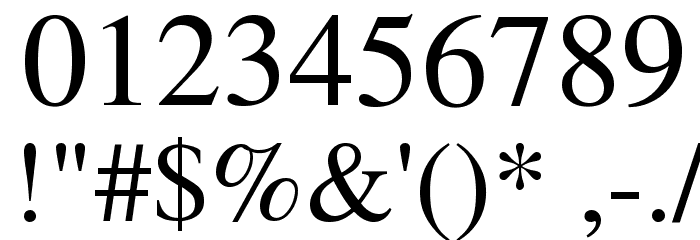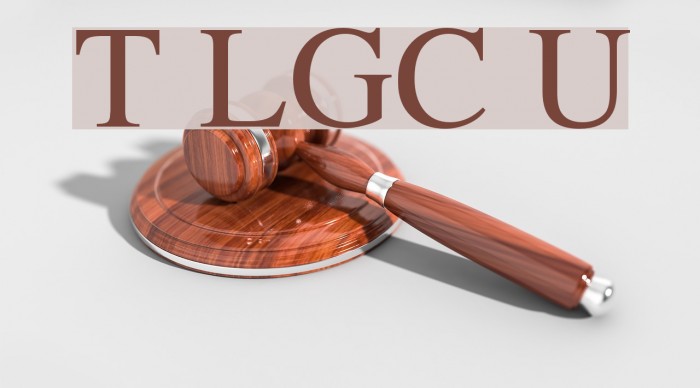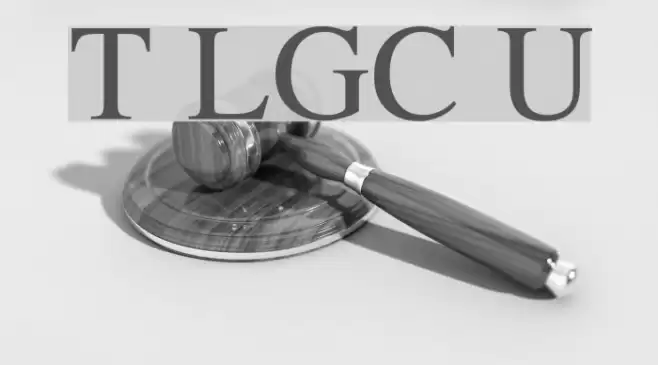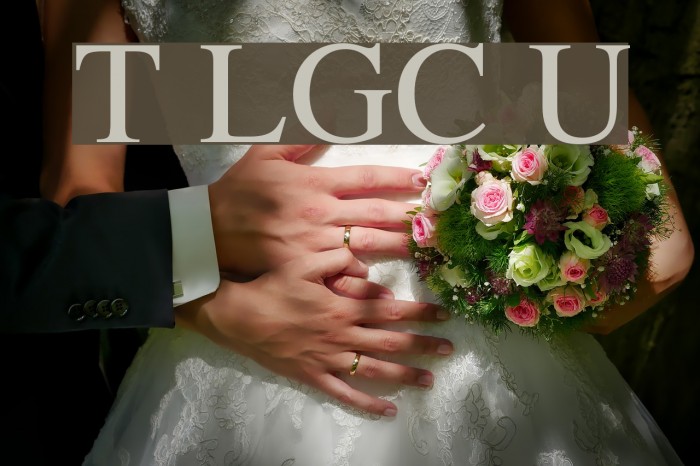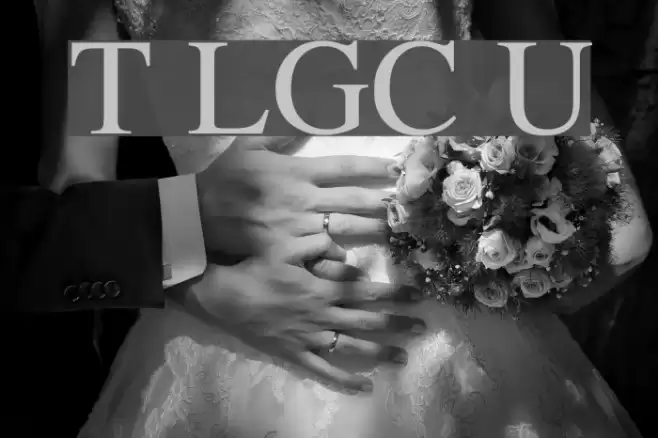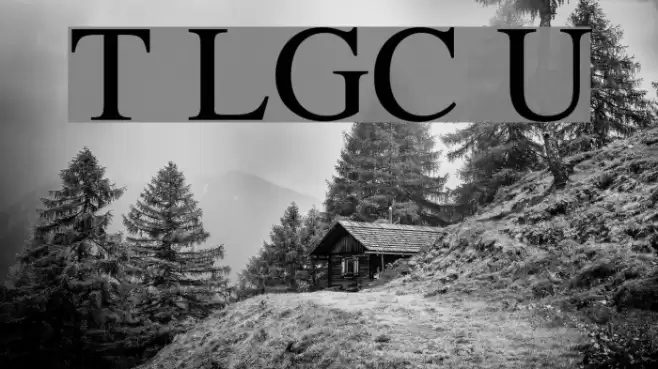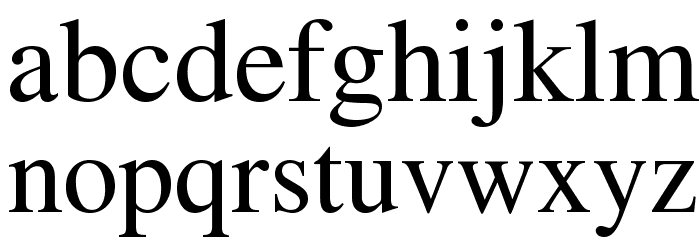
Tempora LGC Unicode Font
Tempora LGC Unicode Description
This font exhibits a classic serif style with a strong presence and elegant curves. The uppercase letters are bold and commanding, while the lowercase letters maintain a refined and sophisticated appearance. The numerals are clear and well-proportioned, ensuring readability. Special characters are designed with the same attention to detail, providing a cohesive look across all glyphs. The overall design is timeless, making it suitable for a variety of applications where a touch of elegance and tradition is desired.
| Categories | Serif |
| Overall Style | Classic |
| Use Case | Headlines, Body text, Logos |
| Proposed Projects | Ideal for book covers, formal invitations, editorial design, and branding projects that require a traditional and sophisticated look. |